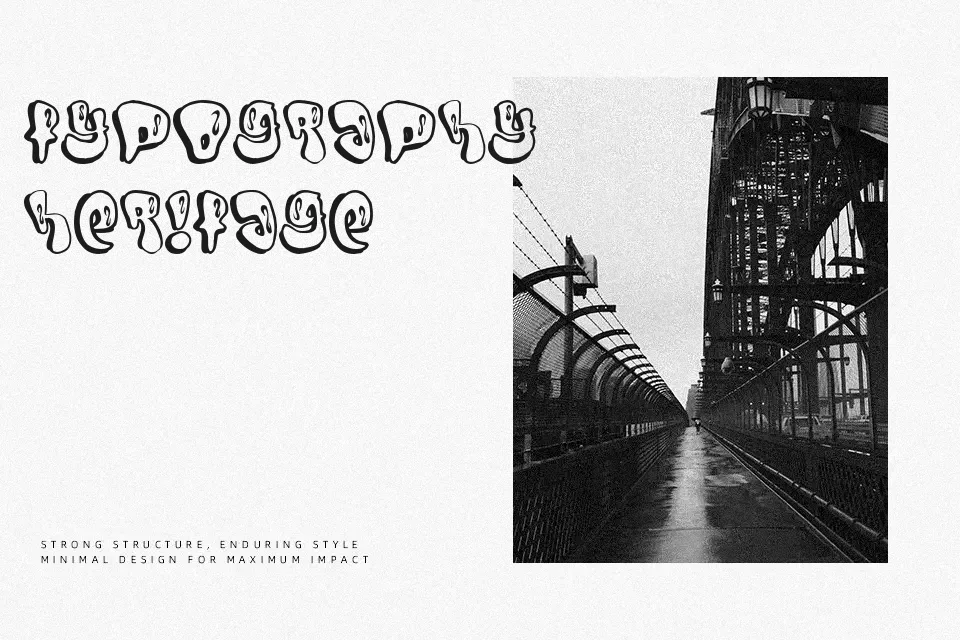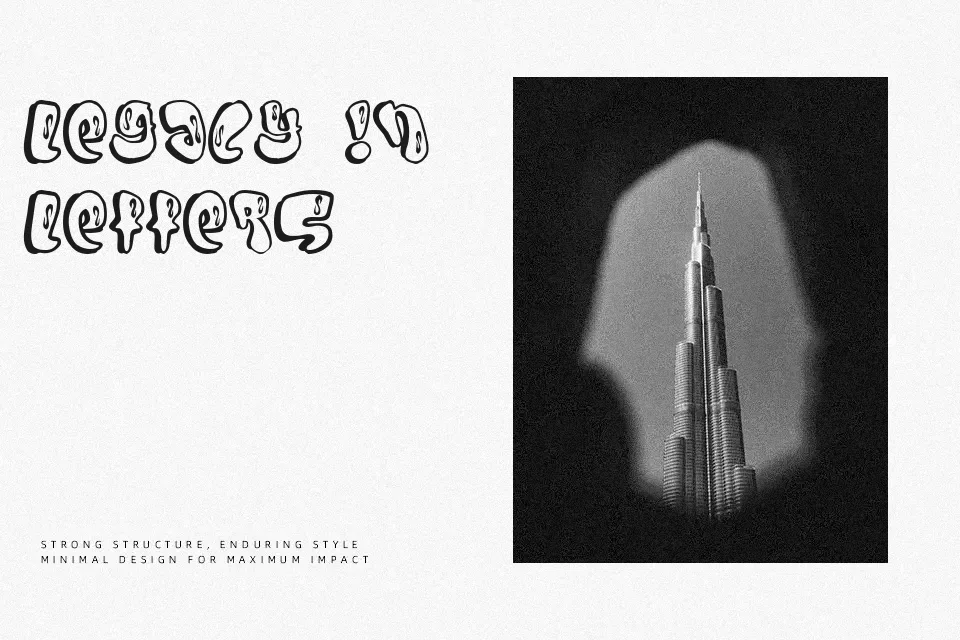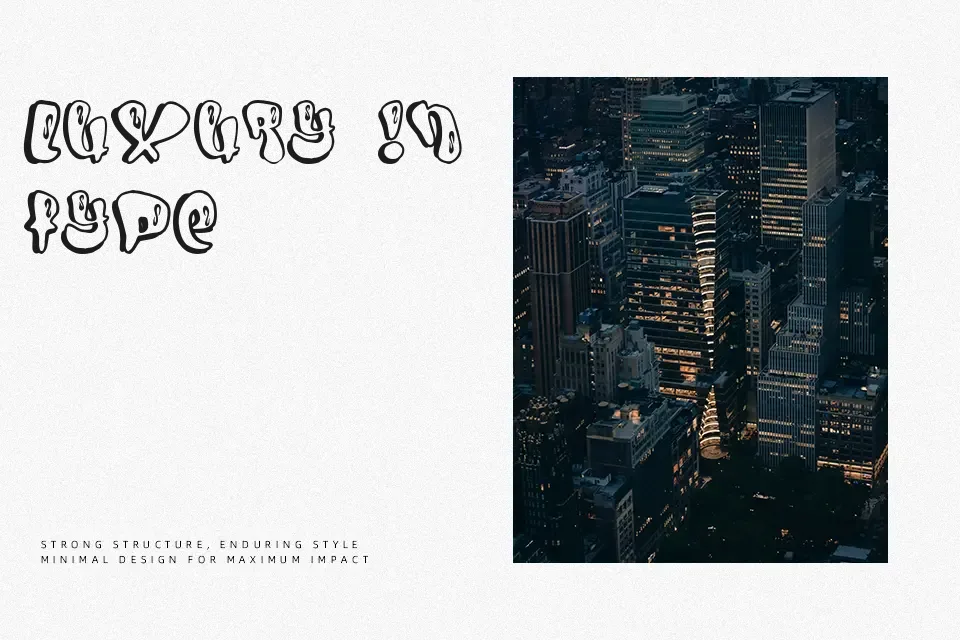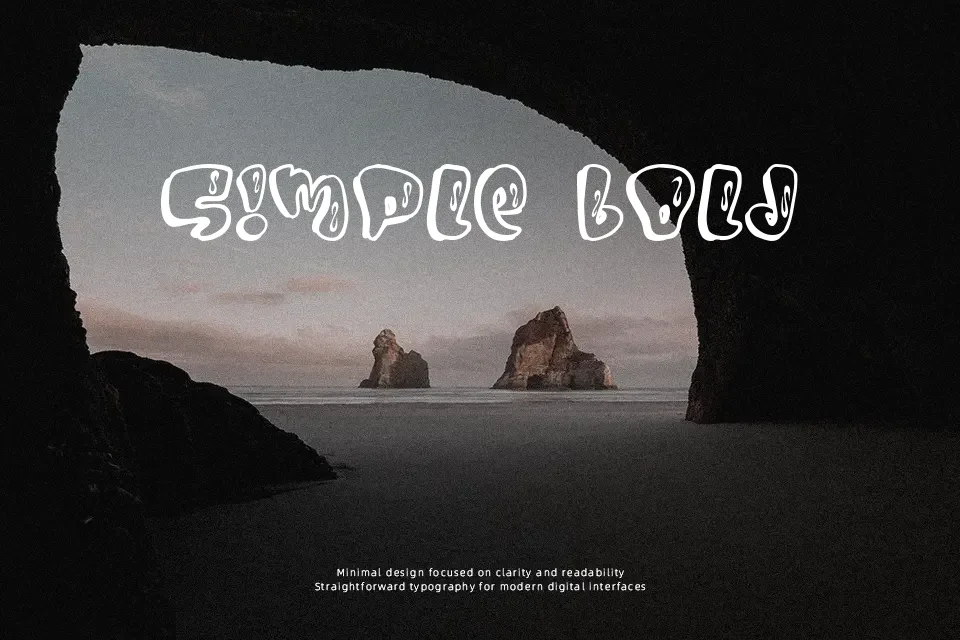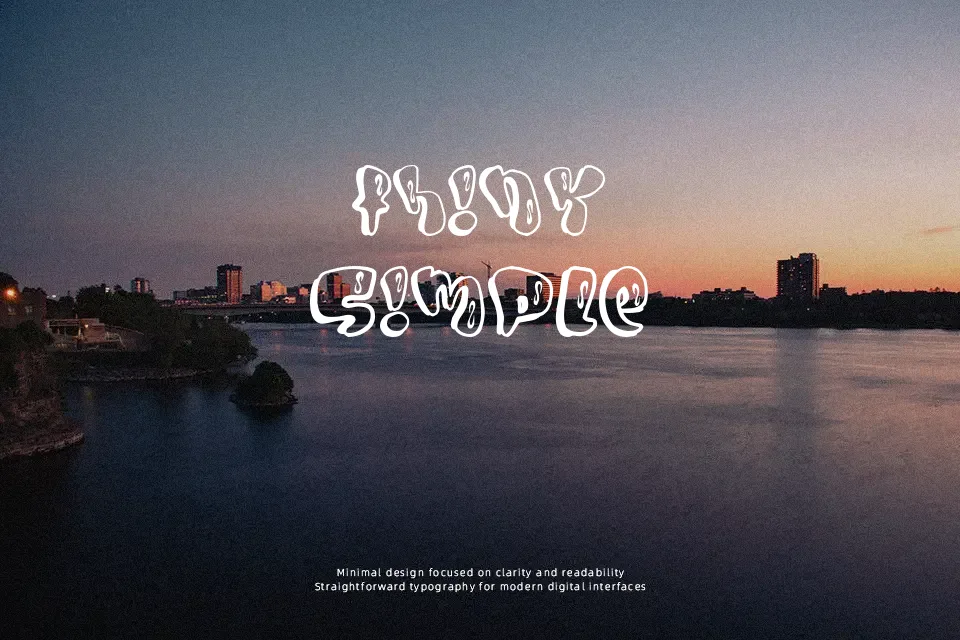
Sumo Font
Designed by Rasmus Andersson
Sumo Font uses thick, rounded forms and broad proportions to give short words a soft, cartoon-like presence. The strokes appear largely uniform, while the open counters and uncomplicated shapes help individual characters remain recognizable at larger display sizes. Spacing is fairly compact but does not make short headlines feel crowded. It fits children’s artwork, playful signage, and bold title treatments more naturally than formal layouts. The weight provides good visibility for posters, although the oversized forms become inefficient in narrow text areas. It is less comfortable for extended reading, small captions, or information-heavy copy.
Best For: children’s activity posters,playful product packaging,cartoon video titles,large shop signage
Not Ideal For: long paragraph text,small interface labels,formal business documents,dense editorial layouts